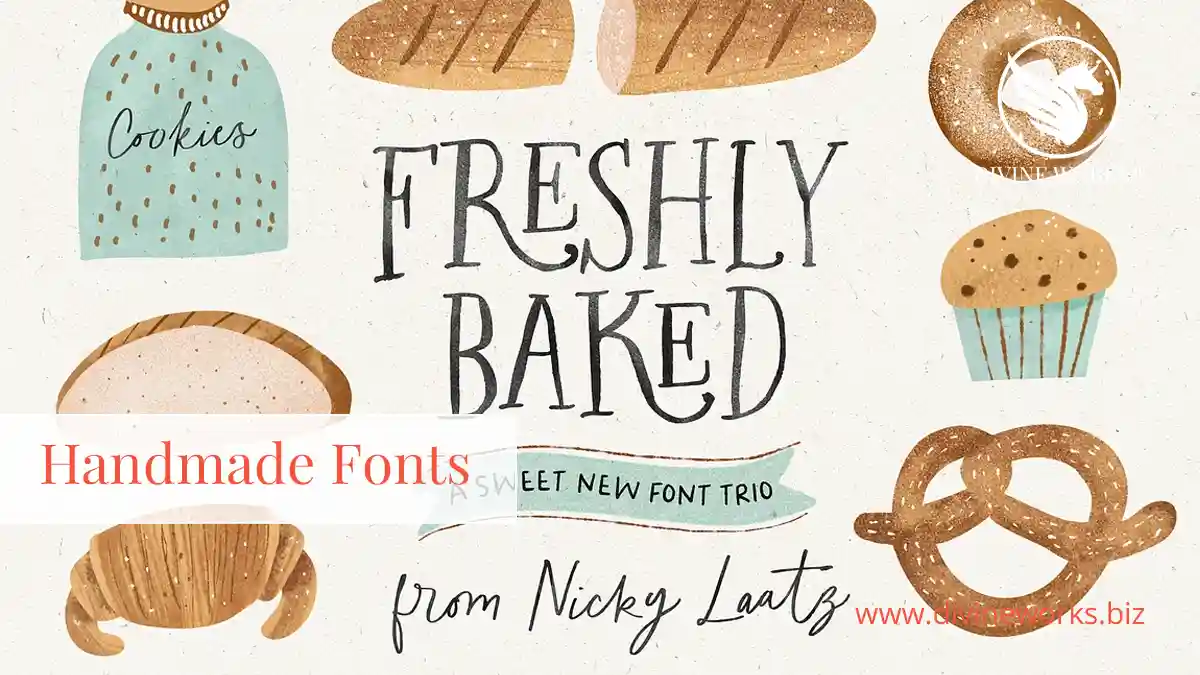
Introducing the Freshly Baked Handmade Fonts Font Trio!
This delightful collection of handwritten fonts, complete with charming dingbats, is perfect for adding a touch of whimsy to your designs.
Font Features
Handwritten Elegance:
Enjoy three beautifully crafted fonts: Serif, Serif Slanted, Sans, Sans Slanted, and Script.
Opentype Ligatures:
Enhance your designs with sophisticated letter combinations for a polished look.
Versatile Dingbats:
Add personality and flair to your projects with the included dingbat font.
Photoshop Watercolor Style:
Experiment with a watercolor effect on your text using the included Photoshop style.
Effortless Creation, Stunning Results
These fonts are perfect for greeting cards, children’s books, packaging design, labels, logos, illustrations etc.
- Freshly Baked Serif
- Freshly Baked Serif Slanted
- Freshly Baked Sans
- Freshly Baked Sans Slanted
- Freshly Baked Script
- Freshly Baked Dings
What are Opentype Ligatures?
Opentype Ligatures are elegant combinations of letters, like the intertwined “Ro” in the Serif font.
The fonts support Danish, English, Filipino, French, German, Italian, Norwegian, Portuguese, Spanish, and Swedish.